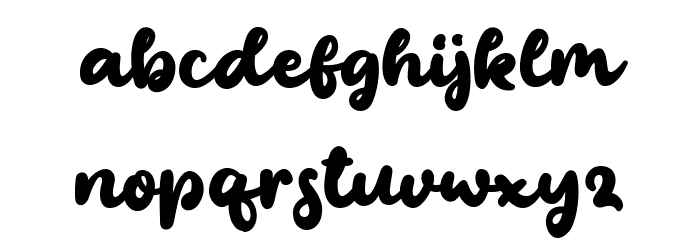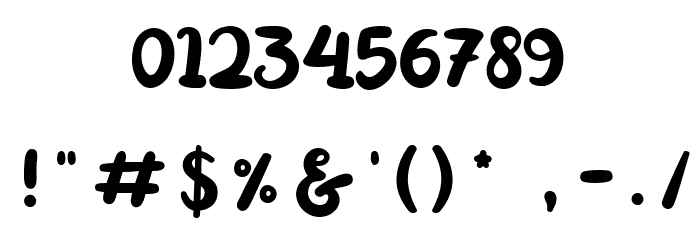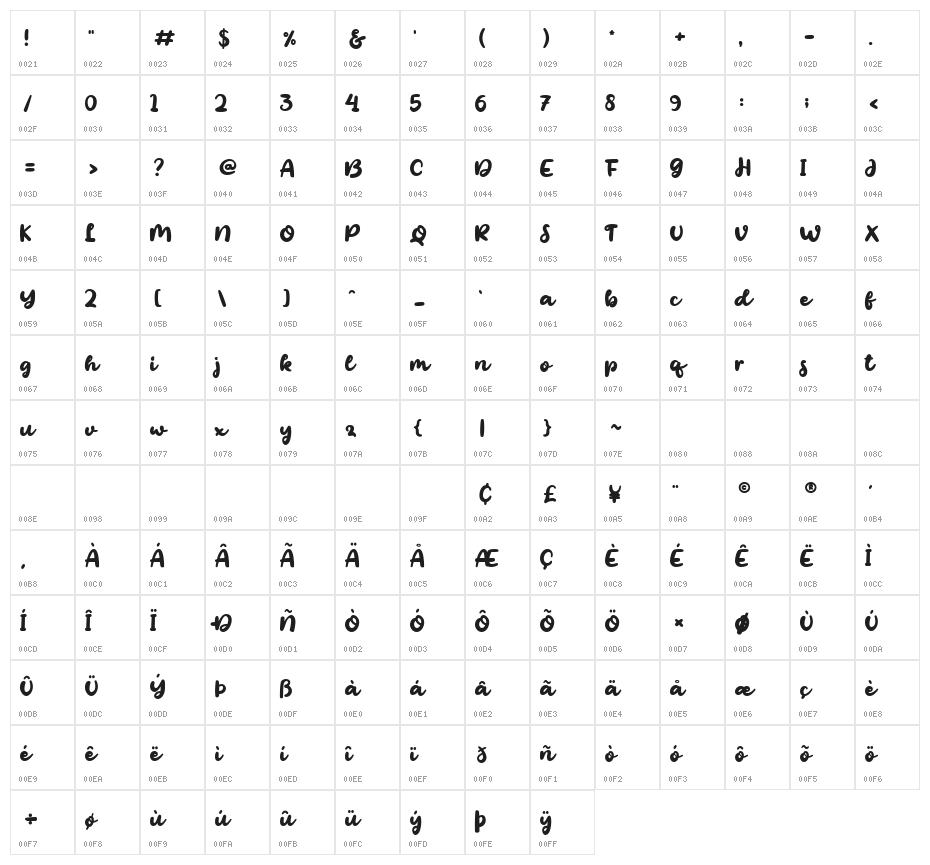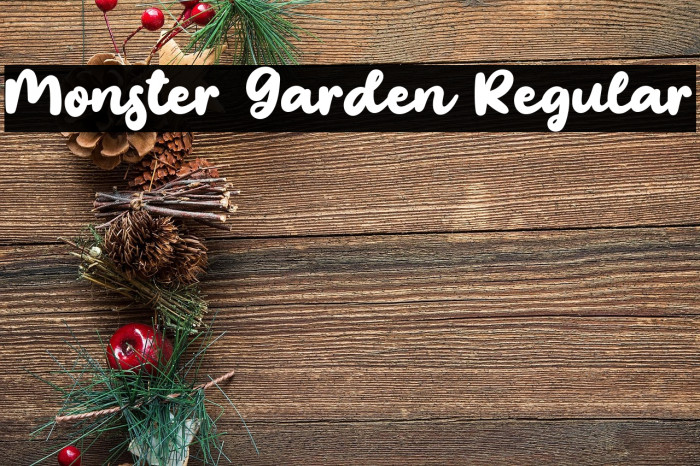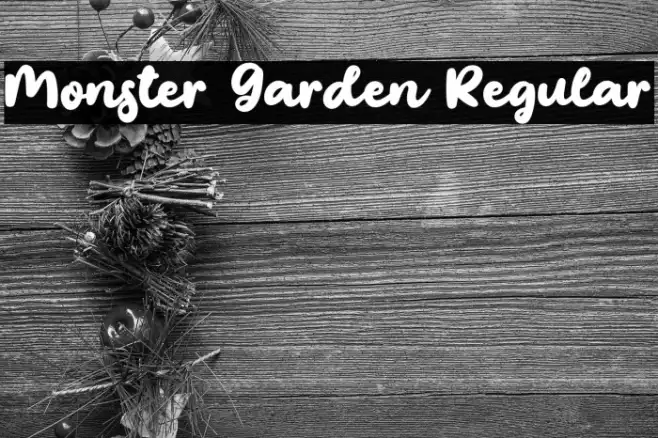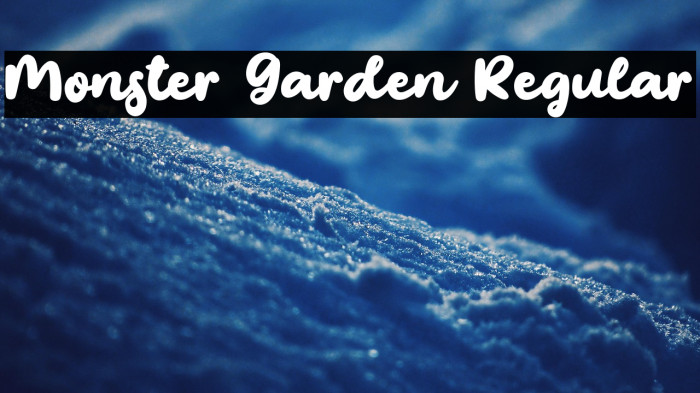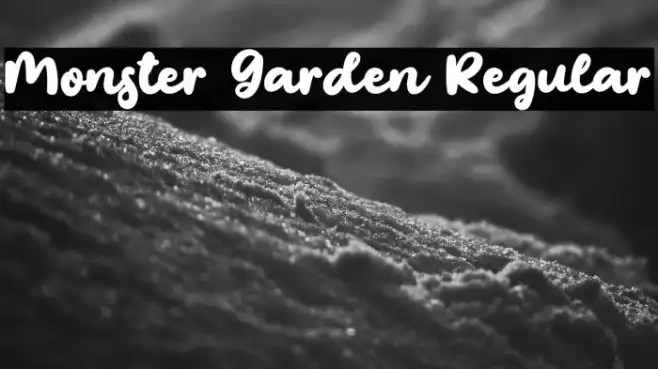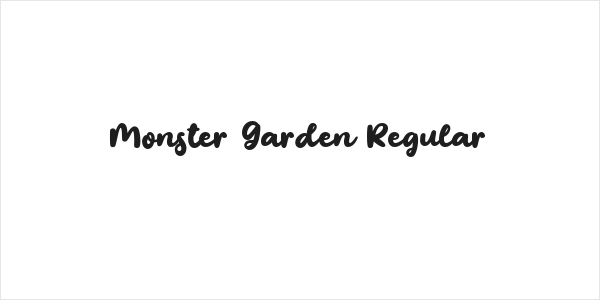
Monster Garden Regular Font
This playful and whimsical font features bold, rounded characters with a hand-drawn aesthetic. The strokes are thick and consistent, giving it a friendly and approachable feel. The uppercase letters are slightly larger and more pronounced, while the lowercase letters maintain a consistent flow, adding to the font's charm. The numbers and special characters are equally bold, ensuring readability and coherence across different uses. Its style is reminiscent of casual handwriting, making it suitable for projects that require a personal touch. The overall design is cohesive, with a slight bounce in the baseline that adds to its lively character.
A playful, bold, and rounded hand-drawn font with a whimsical touch.
- Font: Monster Garden Regular
- Proposed Projects: Ideal for children's books, playful branding, greeting cards, and creative posters.
- Category: Handwritten
- Overall Style: Playful